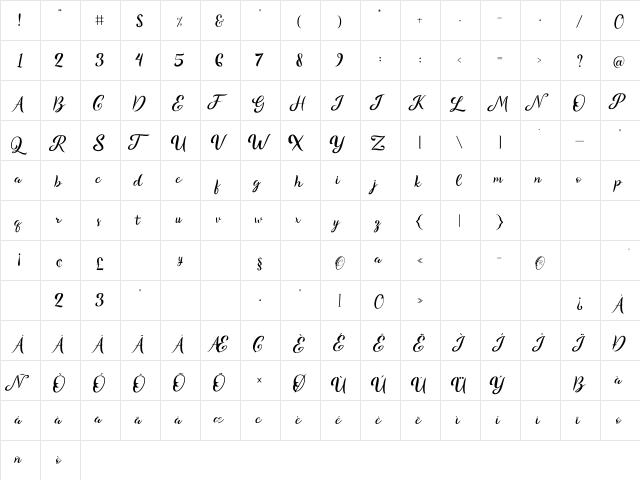
Rindu demo
Design Context for Rindu Typeface
Rindu is a composed and adaptable typeface that performs quietly and consistently across a wide range of design contexts.
Pro Tip: Use Rindu in both headline and body roles to test its range before committing to a single application.